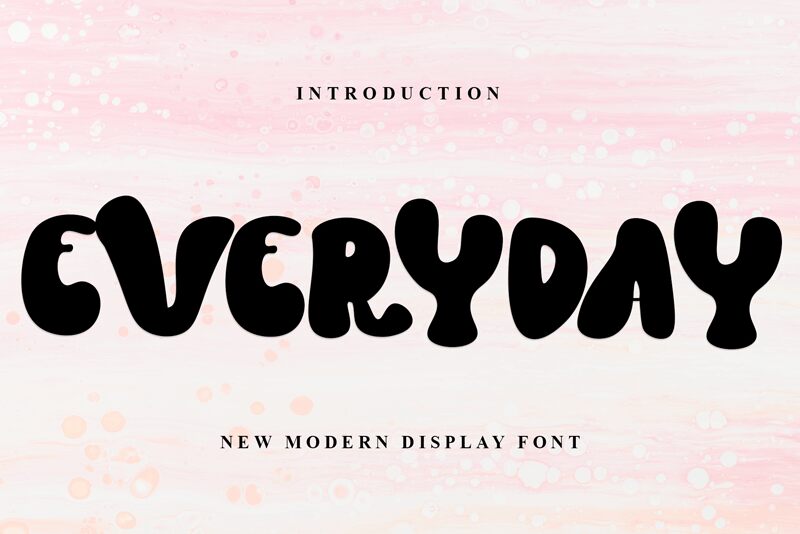
Everyday font by Inermedia Studio is a free groovy font with a quirky, bold, and modern design. Crafted with a unique visual style, this typeface captures attention with its distinctive character shapes and rounded design elements. Friendly and inviting, it has a modern aesthetic and creates an overall energetic impression when applied to your projects.
Everyday font fits exceptionally well in poster, billboard, and web page designs. The font is perfect for your next logo design, t-shirts, packaging and printing projects, headlines, and other applications. Download and enjoy using Everyday in book covers, shoe designs, social media posts, and other essential applications.